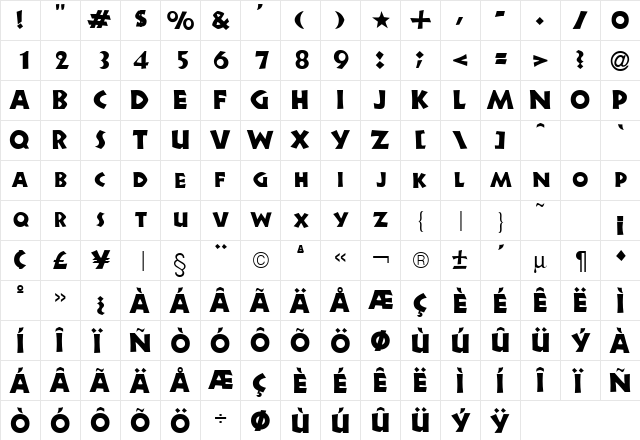
HeartwoodDisplaySCapsSSK Regular
Design Context for HeartwoodDisplaySCapsSSK Typeface
HeartwoodDisplaySCapsSSK echoes the hand-painted signage and woodblock typography of the American frontier, with a warm, rugged personality.
Perfect for barbecue restaurants, country music branding, vintage poster design, and rustic packaging.
Font Pairing: Combine HeartwoodDisplaySCapsSSK with a simple slab or neutral sans — period-accurate companions reinforce the vintage feel without competing for attention.
Pro Tip: Pair HeartwoodDisplaySCapsSSK with aged textures or distressed backgrounds to amplify its vintage personality.